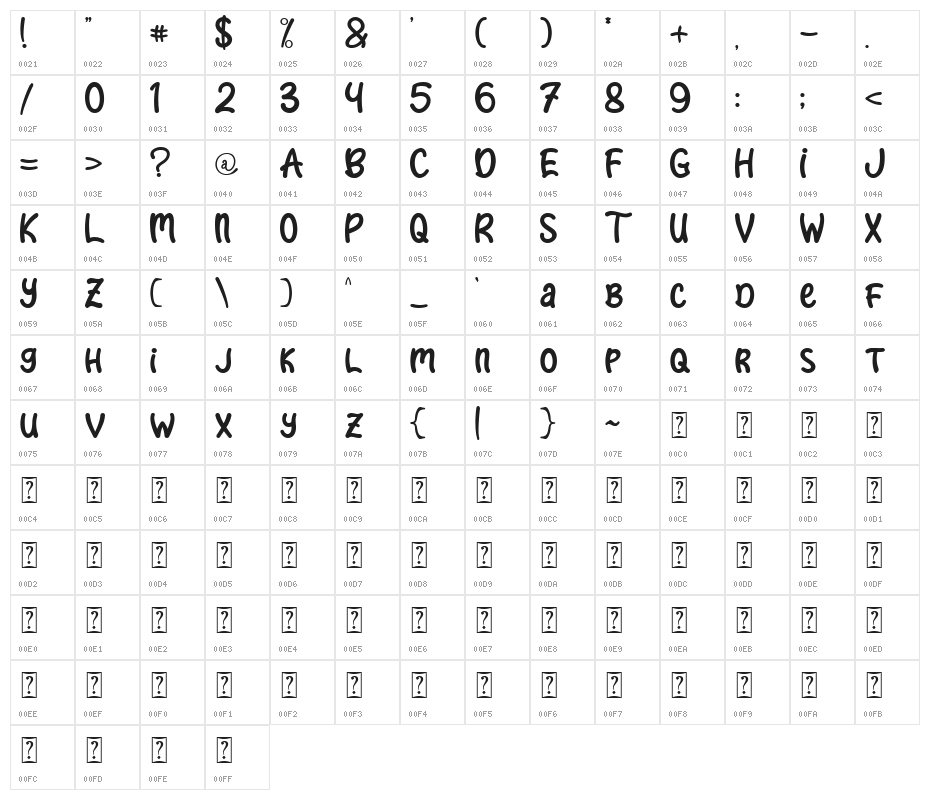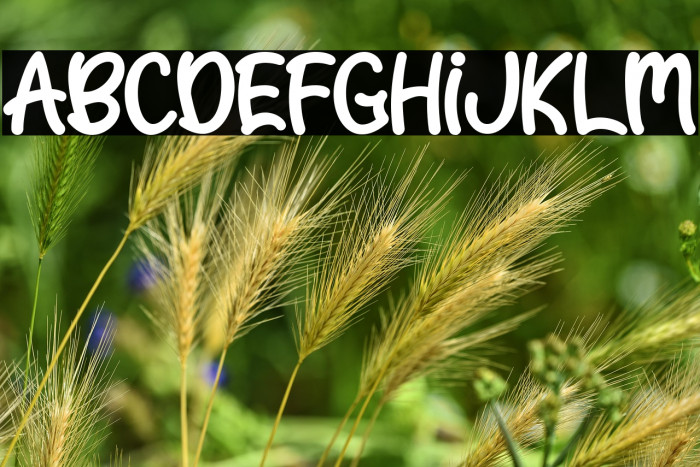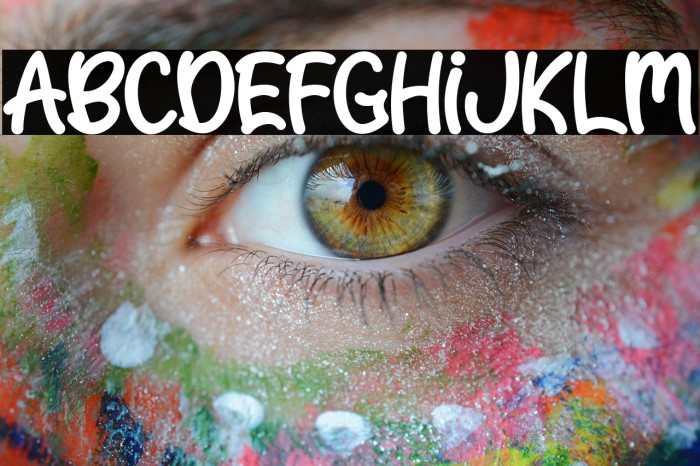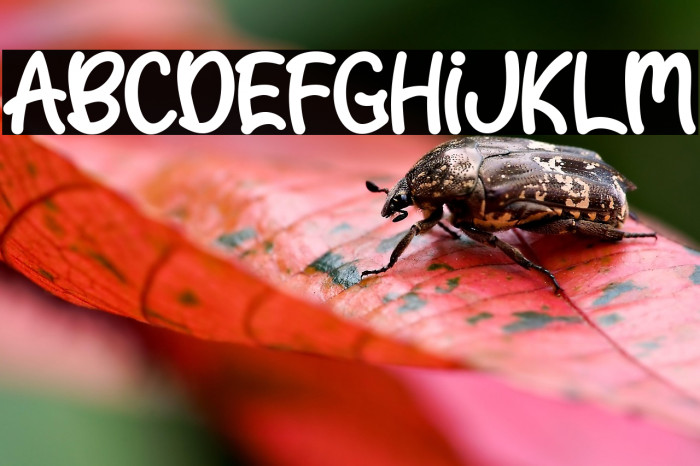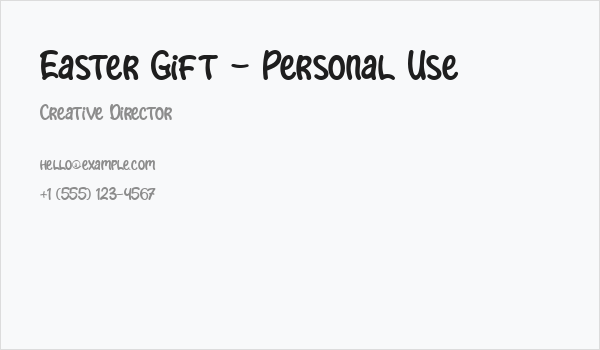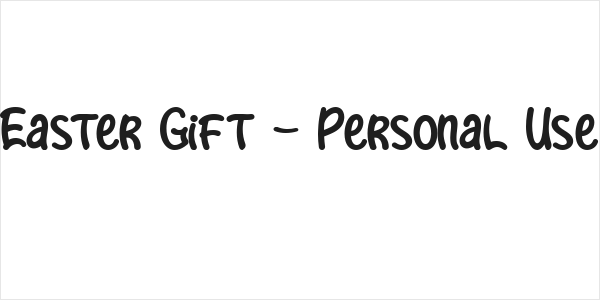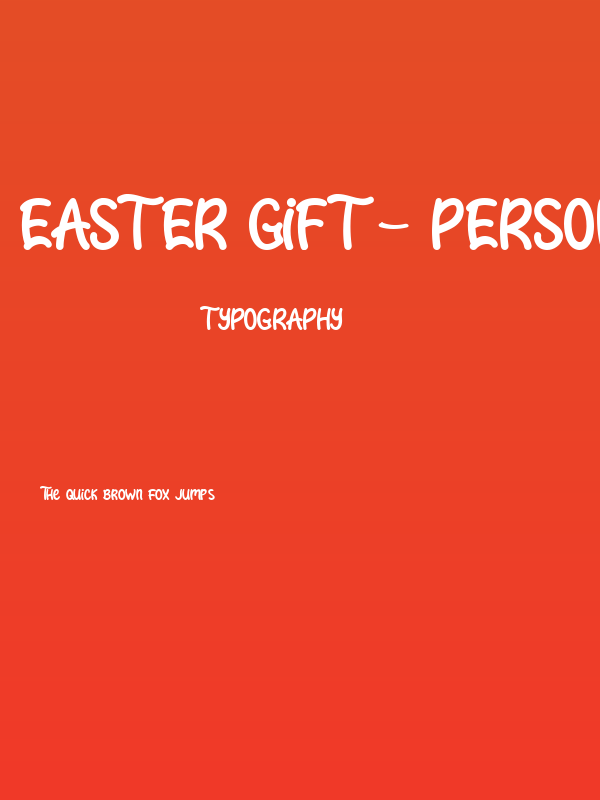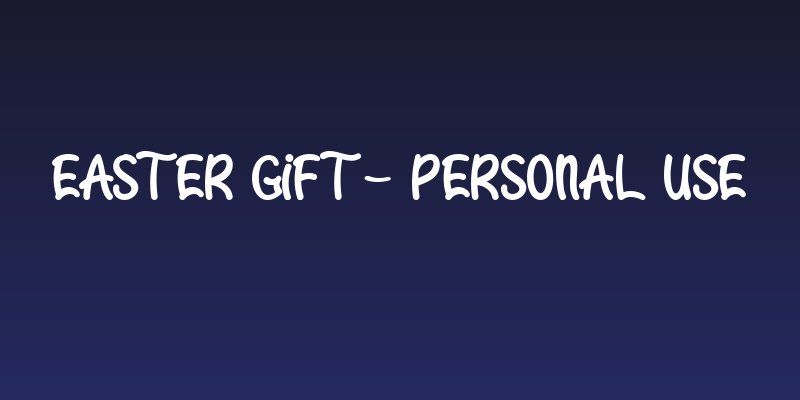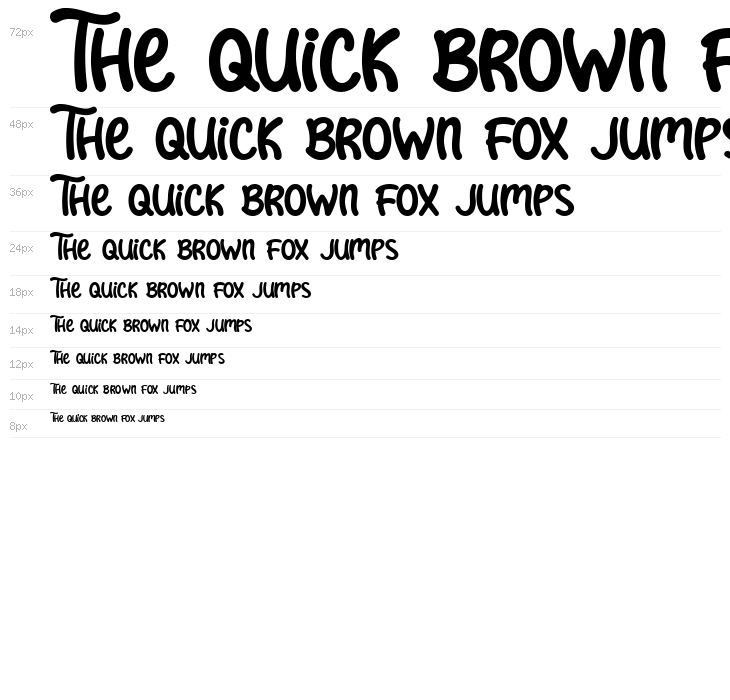
Easter Gift - Personal Use Font
This playful and whimsical font features a handwritten style with bold, rounded characters. The letters have a consistent thickness, giving them a uniform appearance while maintaining a casual and friendly vibe. The uppercase and lowercase letters are well-balanced, with a slight slant that adds to the informal feel. Numbers and special characters are designed to match the overall style, ensuring a cohesive look across all text. The font's design is approachable and lively, making it suitable for projects that require a personal touch.
| Proposed Projects | Ideal for greeting cards, children's books, playful branding, and social media graphics. |